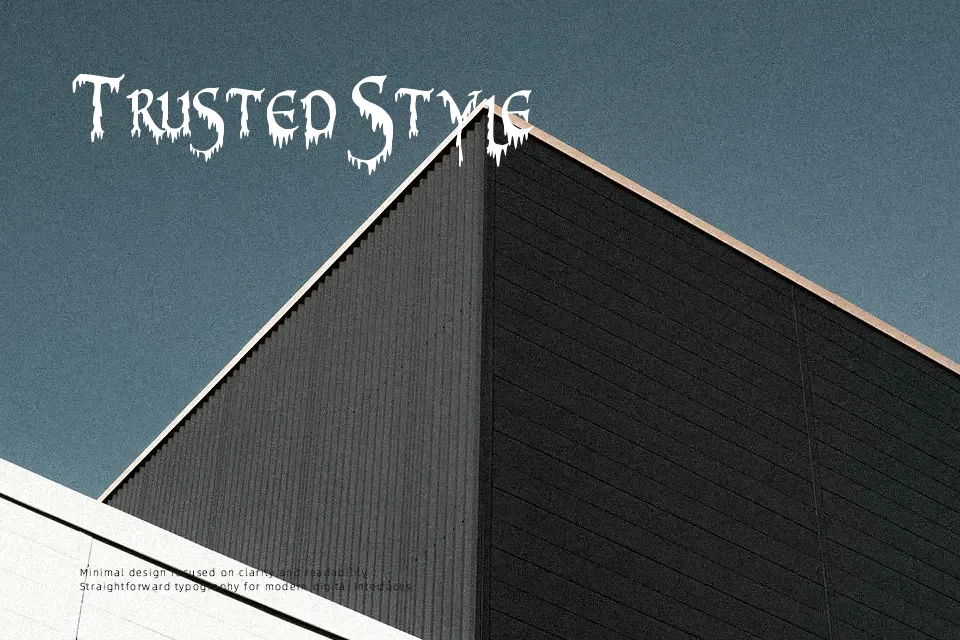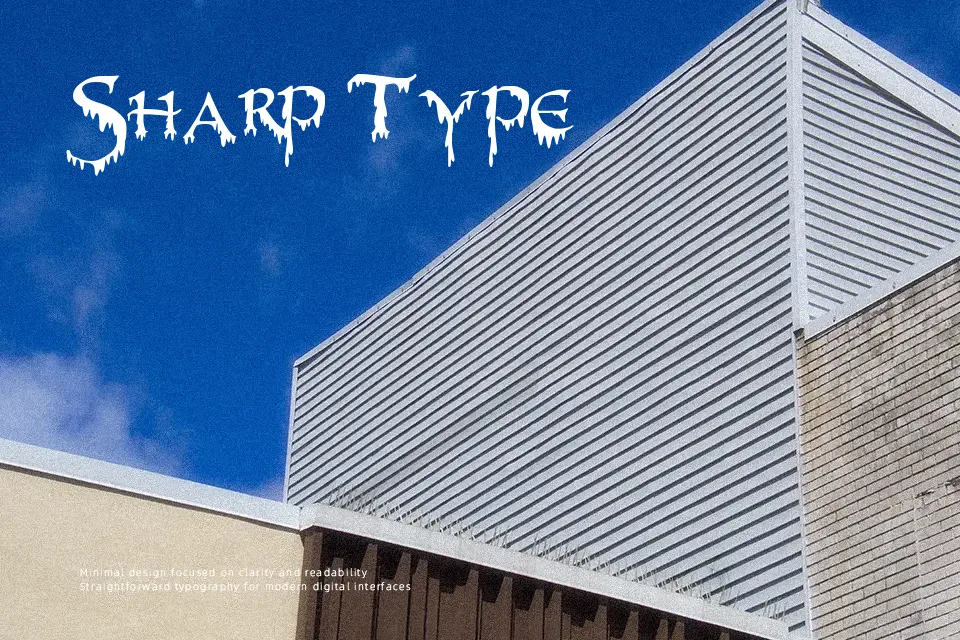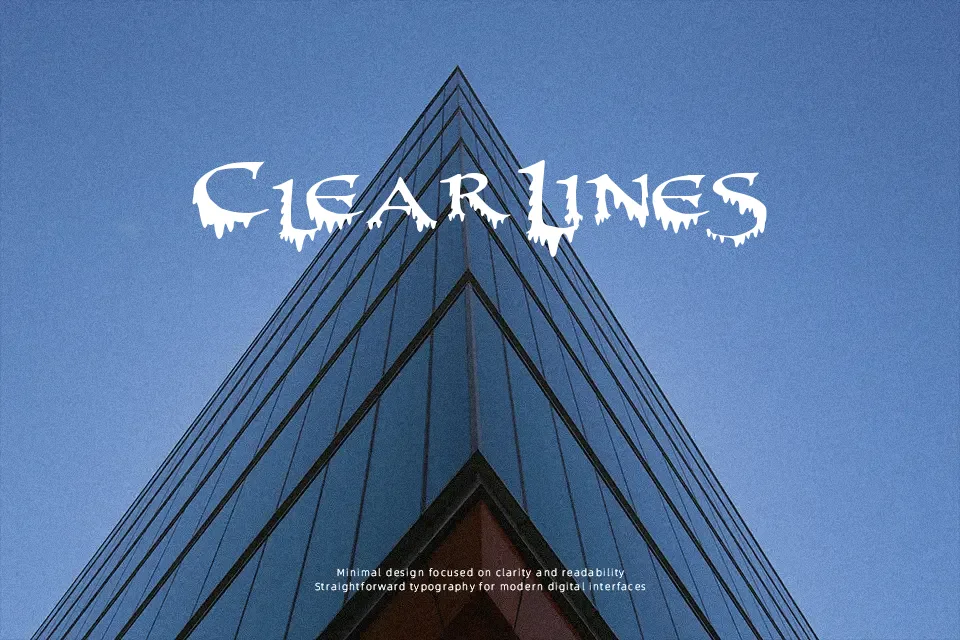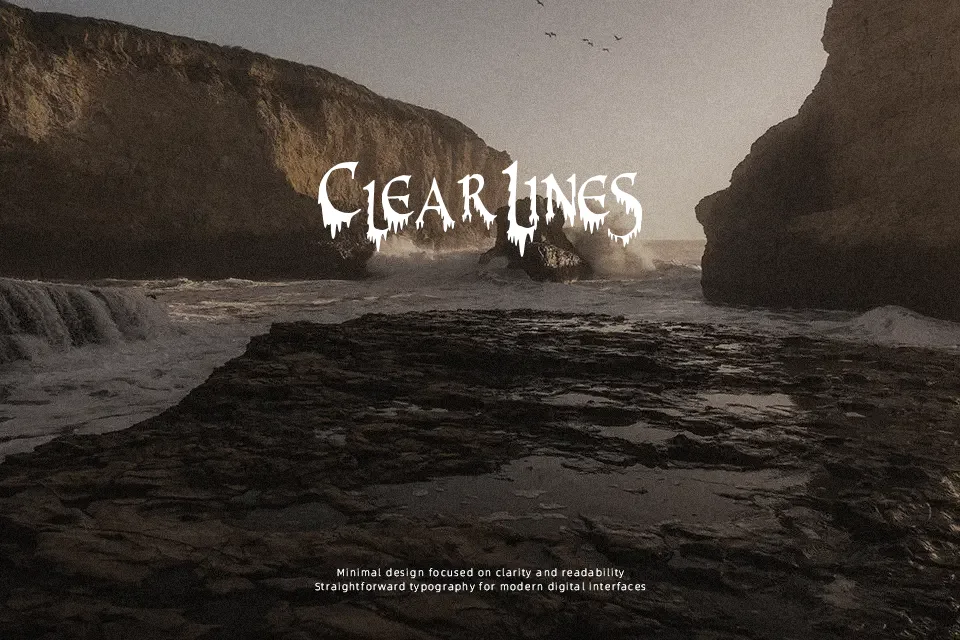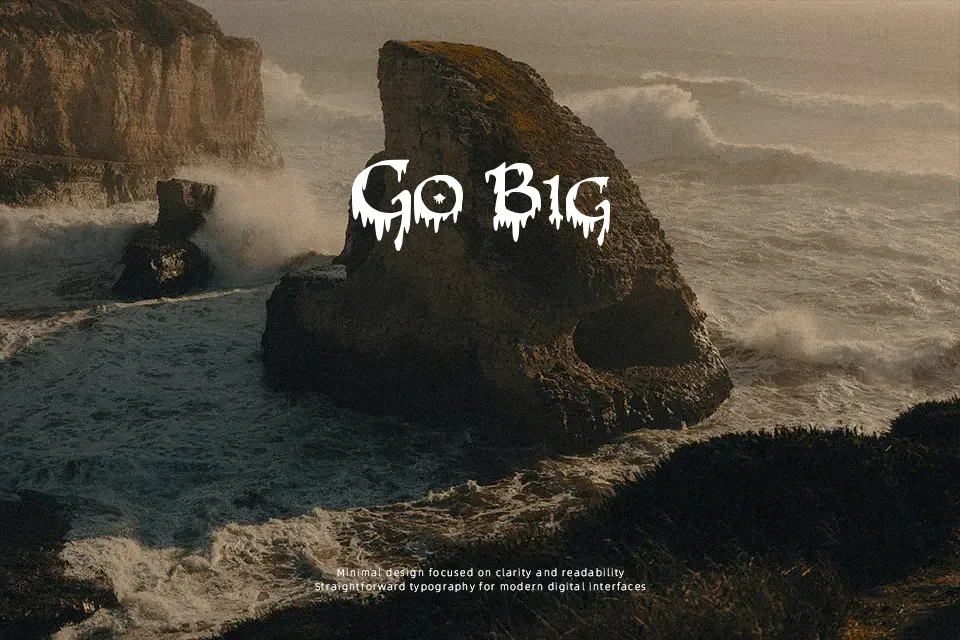
PR Uncial Creepy Font
Designed by Peter Rempel
The unpolished, historical letterforms of PR Uncial Creepy Font present a weathered and distressed take on traditional medieval calligraphy. Its primary strokes feature an erratic, eroded edge that creates a genuinely unsettling texture across the baseline. The rounded, wide proportions characteristic of uncial scripts provide a solid foundation, while the uneven contours and tight spacing reinforce its dark, ancient atmosphere. This typeface performs exceptionally well when applied to large focal points like haunted house signage, dark fantasy book covers, and horror-themed event graphics. However, the heavy distress and unique historical shapes severely reduce continuous reading comfort. Small captions or dense paragraphs will quickly lose clarity and become visually overwhelming.
Best For: horror movie posters, dark fantasy book covers, haunted event signage, heavy metal album art
Not Ideal For: long paragraph text, small interface labels, corporate reports, dense editorial layouts